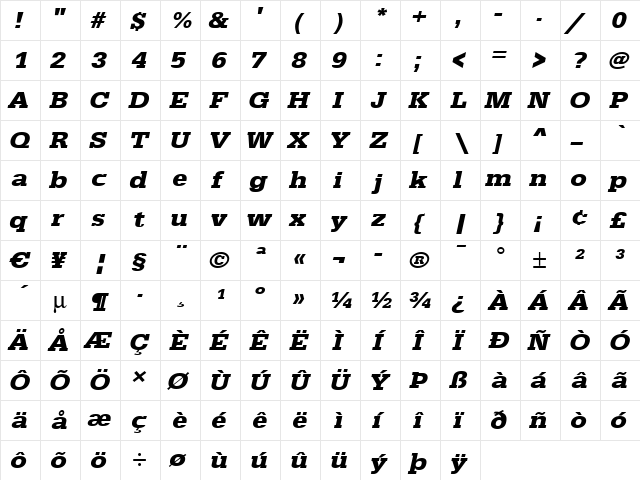
AnitaBeckerExtended Bold Italic Font Preview
Design Context for AnitaBeckerExtended Typeface
AnitaBeckerExtended is a composed and adaptable typeface that performs quietly and consistently across a wide range of design contexts. The dynamic lean of this cut emphasises speed and emphasis in any layout. The heavy weight commands attention and anchors typographic hierarchies.
Pro Tip: Try AnitaBeckerExtended for annotation and caption copy alongside an upright companion — the contrast in angle creates a dynamic but ordered typographic system.